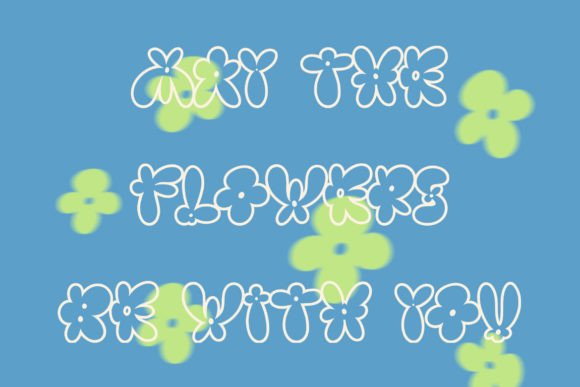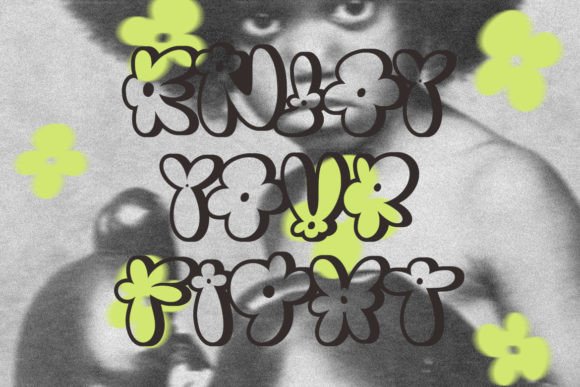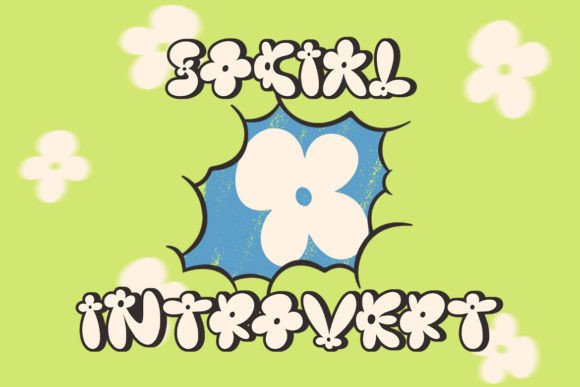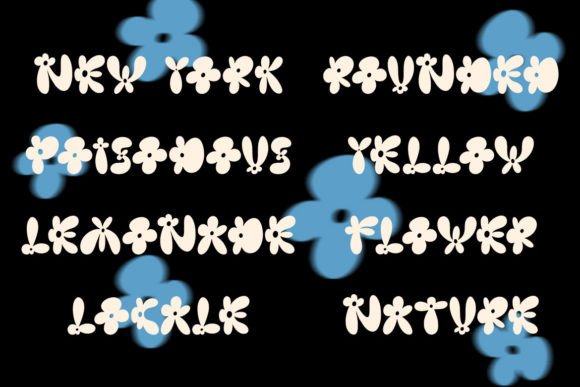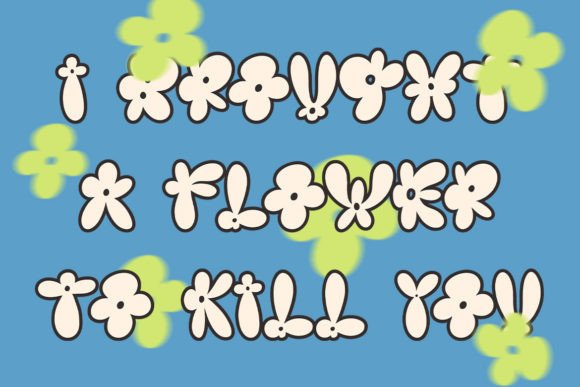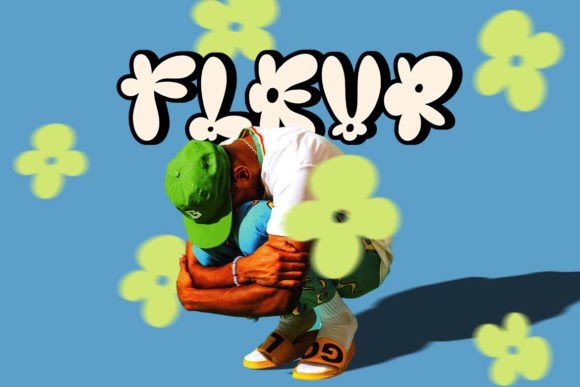
Burst Flower Font: A Delightful Display Typeface for Your Creative Projects
Are you looking for a unique and charming font to add a touch of natural elegance to your designs? Look no further than the Burst Flower font! This delightful display typeface is crafted from vibrant blooms, where each letter is beautifully formed from petals to create a stunning visual effect.
The Beauty of Burst Flower Font
The Burst Flower font is a true masterpiece, where the traditional rules of typography meet the beauty of nature. Each letter is carefully crafted from flowers, leaves, and stems, creating a whimsical and enchanting effect that’s sure to captivate your audience. The font’s delicate and intricate design makes it perfect for adding a touch of elegance and sophistication to your projects.
Whether you’re a designer, crafter, or DIY enthusiast, the Burst Flower font is an excellent choice for a variety of creative projects. From invitations and greeting cards to artistic displays and branding materials, this font is sure to add a fresh and enchanting twist to your work.
Key Features of Burst Flower Font
- Unique and Charming Design: Each letter is beautifully crafted from vibrant blooms, creating a stunning visual effect.
- Natural Elegance: The font’s delicate and intricate design adds a touch of natural elegance to your designs.
- Versatile: Perfect for a variety of creative projects, including invitations, greeting cards, artistic displays, and branding materials.
Using Burst Flower Font in Your Designs
The Burst Flower font is incredibly versatile and can be used in a variety of creative projects. Here are a few ideas to get you started:
- Invitations: Add a touch of elegance and sophistication to your invitations with the Burst Flower font.
- Greeting Cards: Create beautiful and unique greeting cards for special occasions, such as weddings, birthdays, and holidays.
- Artistic Displays: Use the Burst Flower font to create stunning artistic displays, such as posters, banners, and signs.
- Branding Materials: Add a touch of natural elegance to your branding materials, such as logos, business cards, and letterheads.
Tips and Tricks for Working with Burst Flower Font
Here are a few tips and tricks to help you get the most out of the Burst Flower font:
- Experiment with Colors: The Burst Flower font looks stunning in a variety of colors, so don’t be afraid to experiment and find the perfect hue for your design.
- Play with Size: The font looks great in a range of sizes, from small and delicate to large and bold.
- Combine with Other Fonts: The Burst Flower font pairs well with a variety of other fonts, so feel free to experiment and find the perfect combination for your design.
The Burst Flower font is a delightful and charming display typeface that’s perfect for adding a touch of natural elegance to your designs. With its unique and intricate design, this font is sure to captivate your audience and add a fresh and enchanting twist to your projects. Whether you’re a designer, crafter, or DIY enthusiast, the Burst Flower font is an excellent choice for a variety of creative projects.